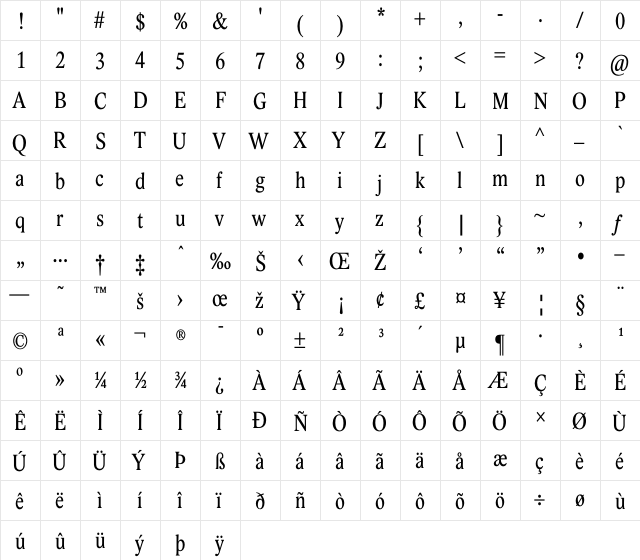
Lido STF CE Cond Regular
Design Context for Lido STF CE Typeface
Lido STF CE takes a measured approach to typography — its balanced proportions and neutral character make it a reliable workhorse for both digital and print work. The condensed width makes it efficient for tight spaces without sacrificing legibility.